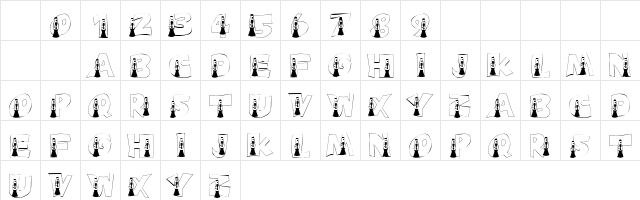
Complete 101! GroOovy Baby Regular glyph index. Displaying only characters natively supported by 101! GroOovy Baby Regular font.
101! GroOovy Baby is a composed and adaptable typeface that performs quietly and consistently across a wide range of design contexts.